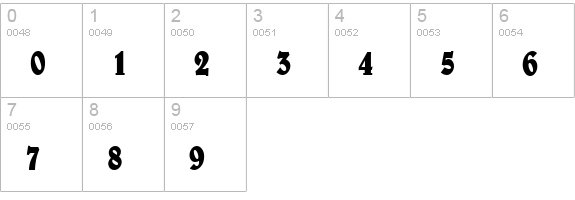
URWBerniniTBolCon Font Details
URWBerniniTBolCon is a magnificent font that exudes elegance and style. Its bold and confident curves make it perfect for creating eye-catching headlines, titles, and logos. With its unique blend of classic and contemporary design elements, this font is sure to make a lasting impression. What sets URWBerniniTBolCon apart is its versatility. Whether you're designing print materials, digital graphics, or websites, this font can effortlessly adapt to any project. Its clean and legible characters ensure readability, even at smaller sizes. Not only is URWBerniniTBolCon visually stunning, but it also offers a seamless user experience. Its smooth lines and balanced proportions make it a joy to work with, enhancing your creative process. The font's high-quality design ensures crisp and clear text, adding a professional touch to your work. One of the best things about URWBerniniTBolCon is that it is free. Yes, you read that right. This incredible font can be freely downloaded at FontsMarket.com. This means that you can enhance your designs without having to worry about any additional costs. It's a fantastic opportunity to access a top-notch font without breaking the bank. So, whether you're a professional designer or someone looking to spice up their personal projects, URWBerniniTBolCon is the font for you. Its timeless beauty and accessibility make it a valuable addition to any font collection. Don't miss out on the chance to download it for free at FontsMarket.com and unlock a world of creative possibilities.